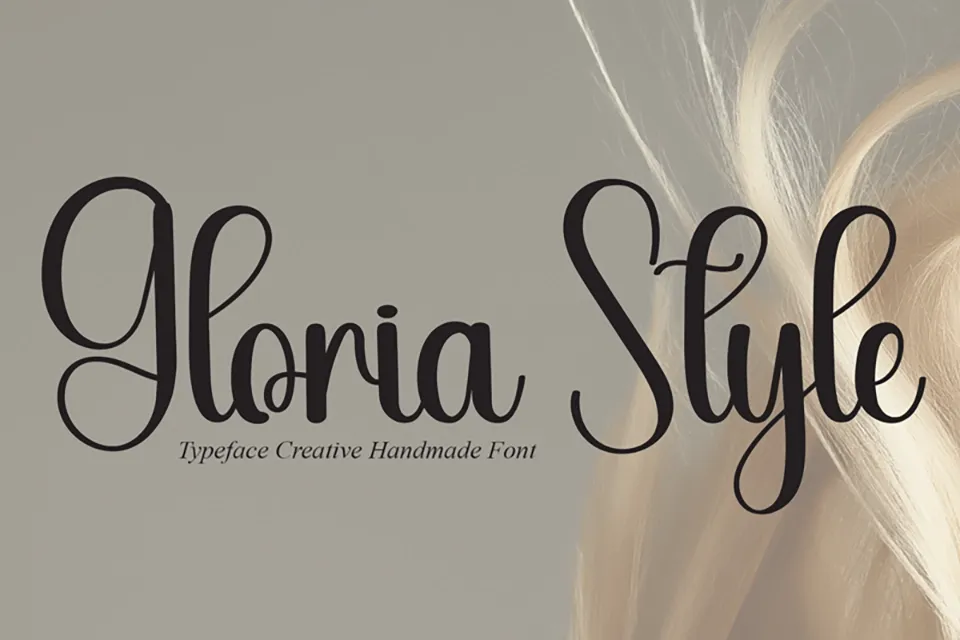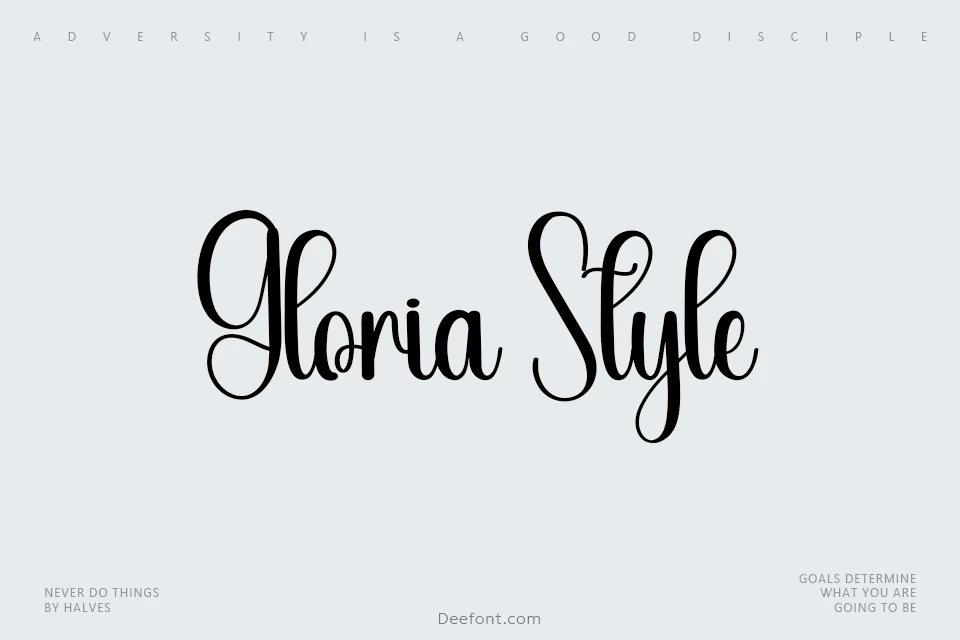
Gloria Style Font
Gloria Style Font is a creative handmade typeface characterized by its flowing script aesthetic. This font features elegant curves and a natural, handwritten feel, making it perfect for adding a personal and artistic touch to your projects. Its stylish appearance is well-suited for various applications, including branding, invitations, logos, and social media graphics. Gloria Style brings warmth and personality to text, offering a charming and distinctive look for designs that require a touch of handcrafted elegance.